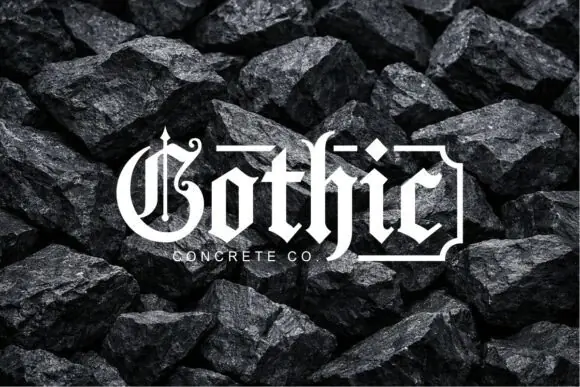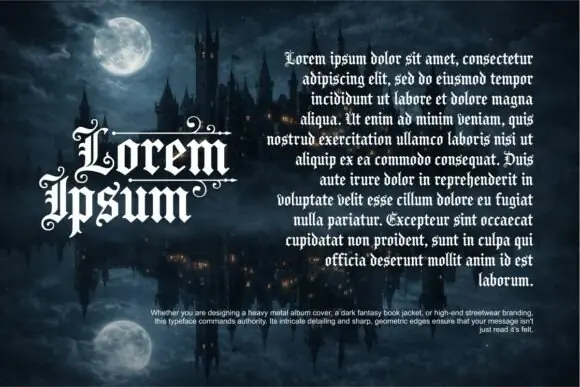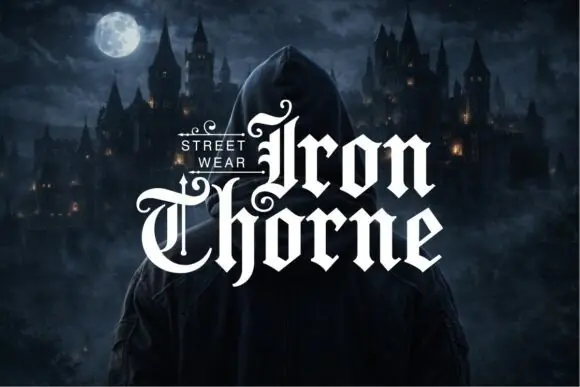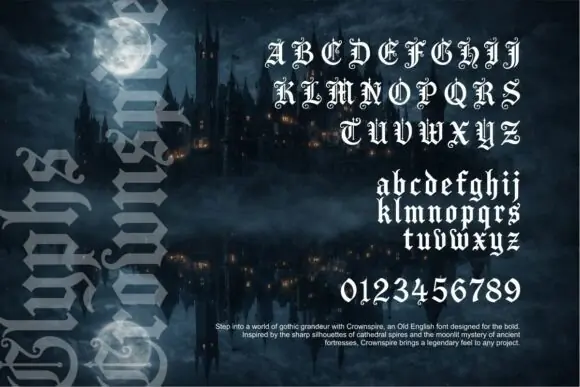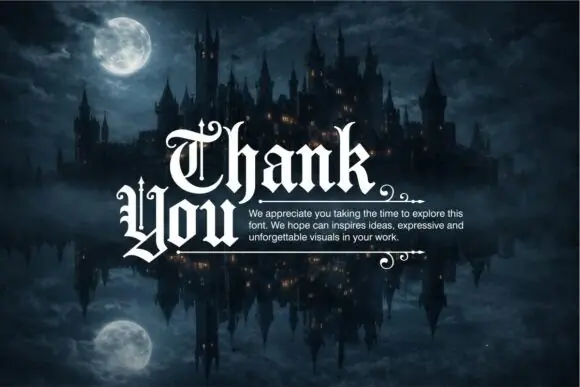
Create bold, powerful, and unforgettable designs with Crownspire Font, a modern reimagining of classic Old English and Blackletter typography. This font blends medieval tradition with sharp contemporary design, giving your projects a prestigious, mysterious, and commanding visual style.
Inspired by the dramatic silhouettes of cathedral spires, ancient fortresses, and gothic architecture, Crownspire delivers a legendary and high-impact look. Its high-contrast strokes, aggressive terminal points, ornate flourishes, and sharp geometric edges make it perfect for designs that need authority, darkness, elegance, and strength.
Crownspire is ideal for designers, branding creators, apparel sellers, book cover designers, music artists, gamers, and creative businesses looking for a font that feels bold, premium, and visually dominant. Whether used for a heavy metal album cover, dark fantasy book jacket, luxury streetwear branding, gaming logo, tattoo-inspired artwork, or poster design, this typeface makes every word feel powerful and memorable.
Its modernized blackletter strokes improve readability while still preserving the dramatic gothic character of traditional Old English fonts. Crownspire pairs beautifully with filigree, vintage ornaments, medieval frames, dark fantasy graphics, and premium branding layouts.
Key Style Features